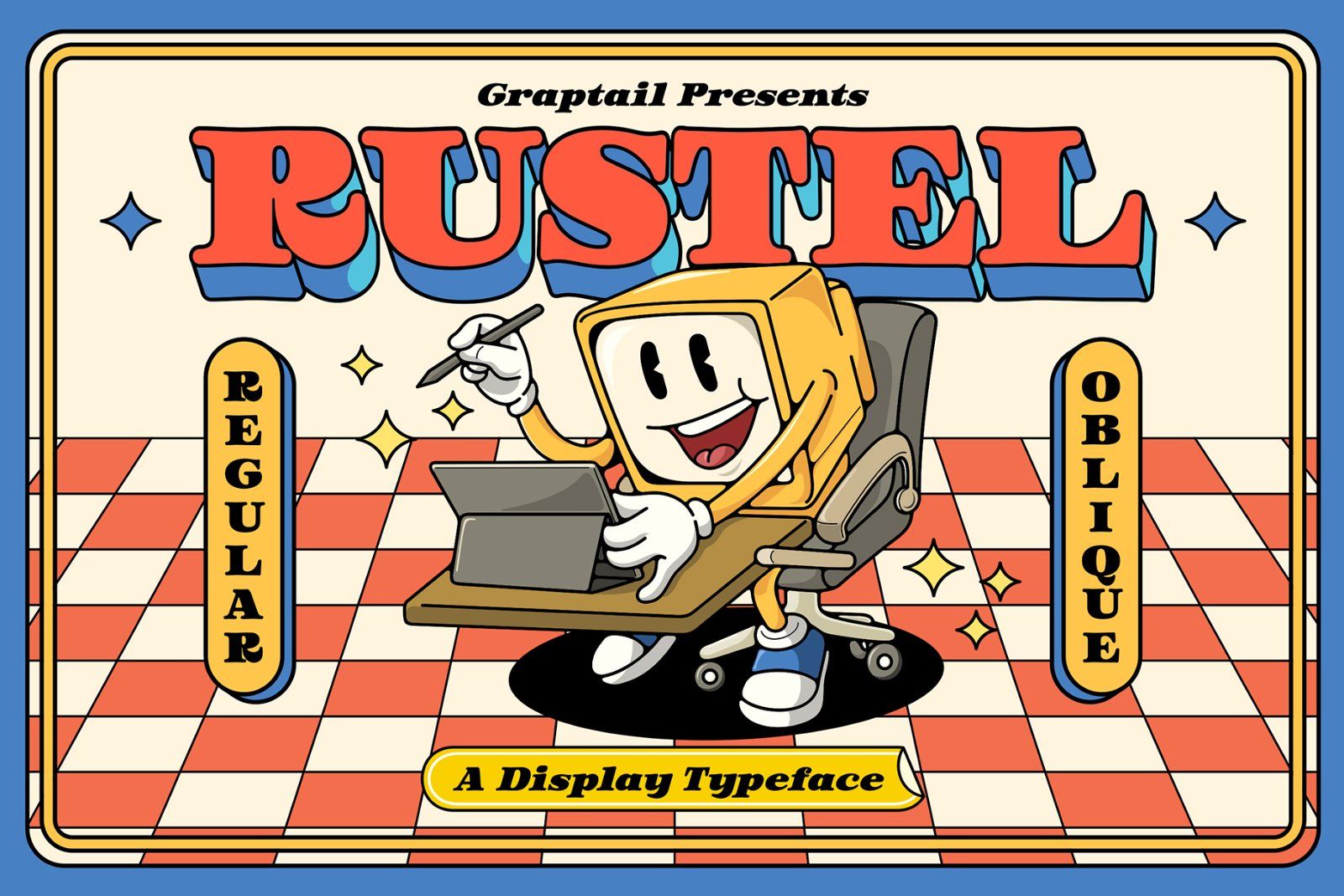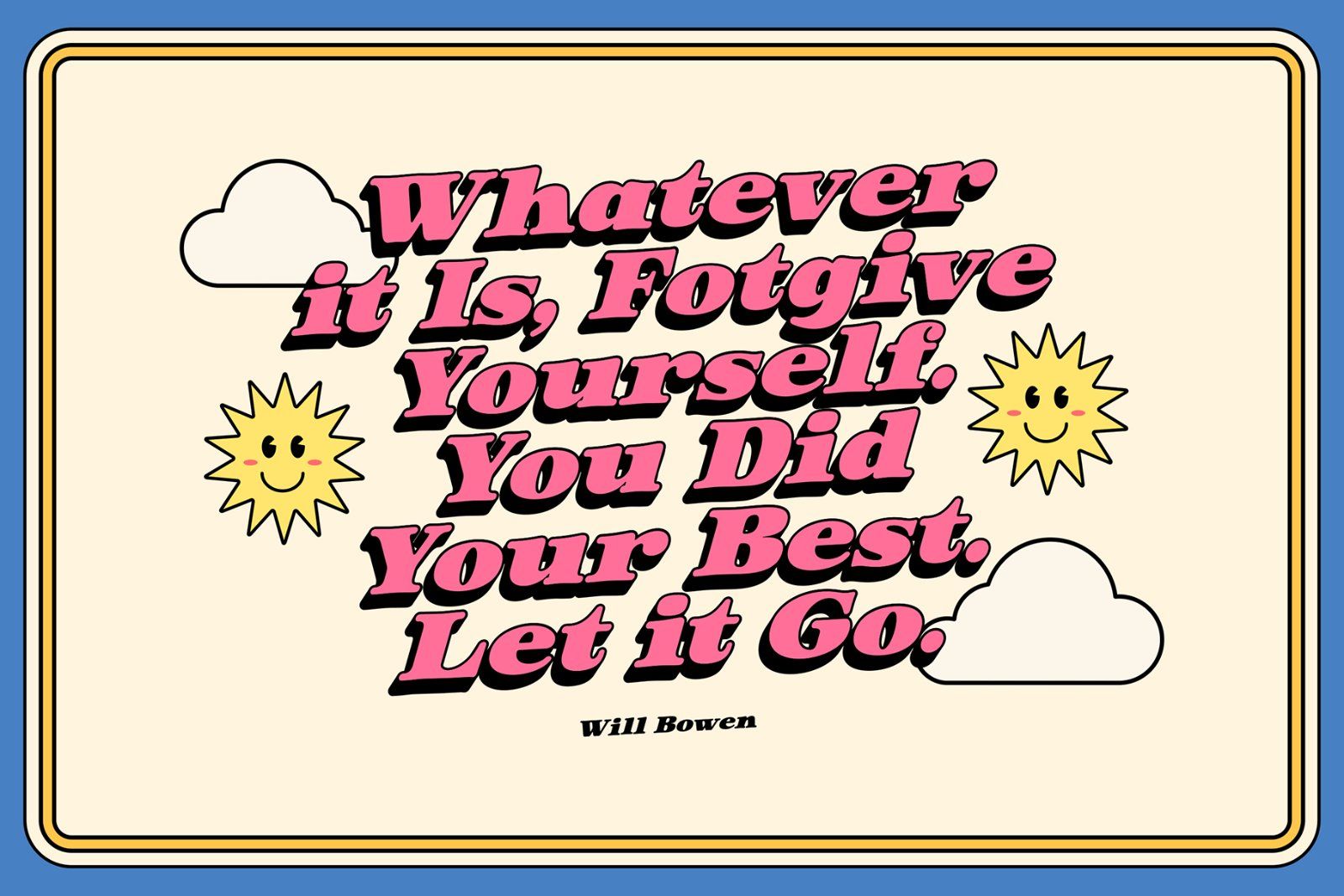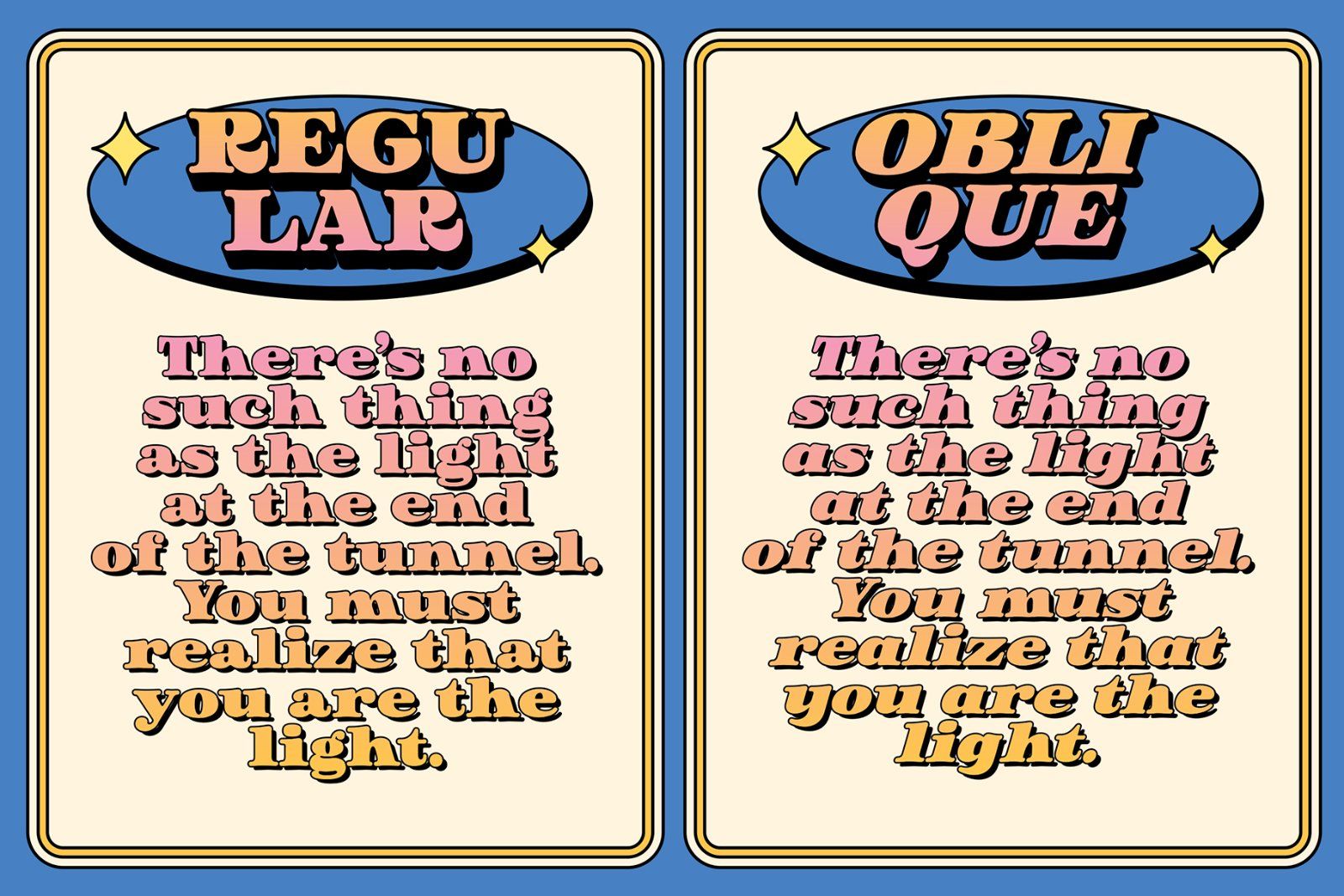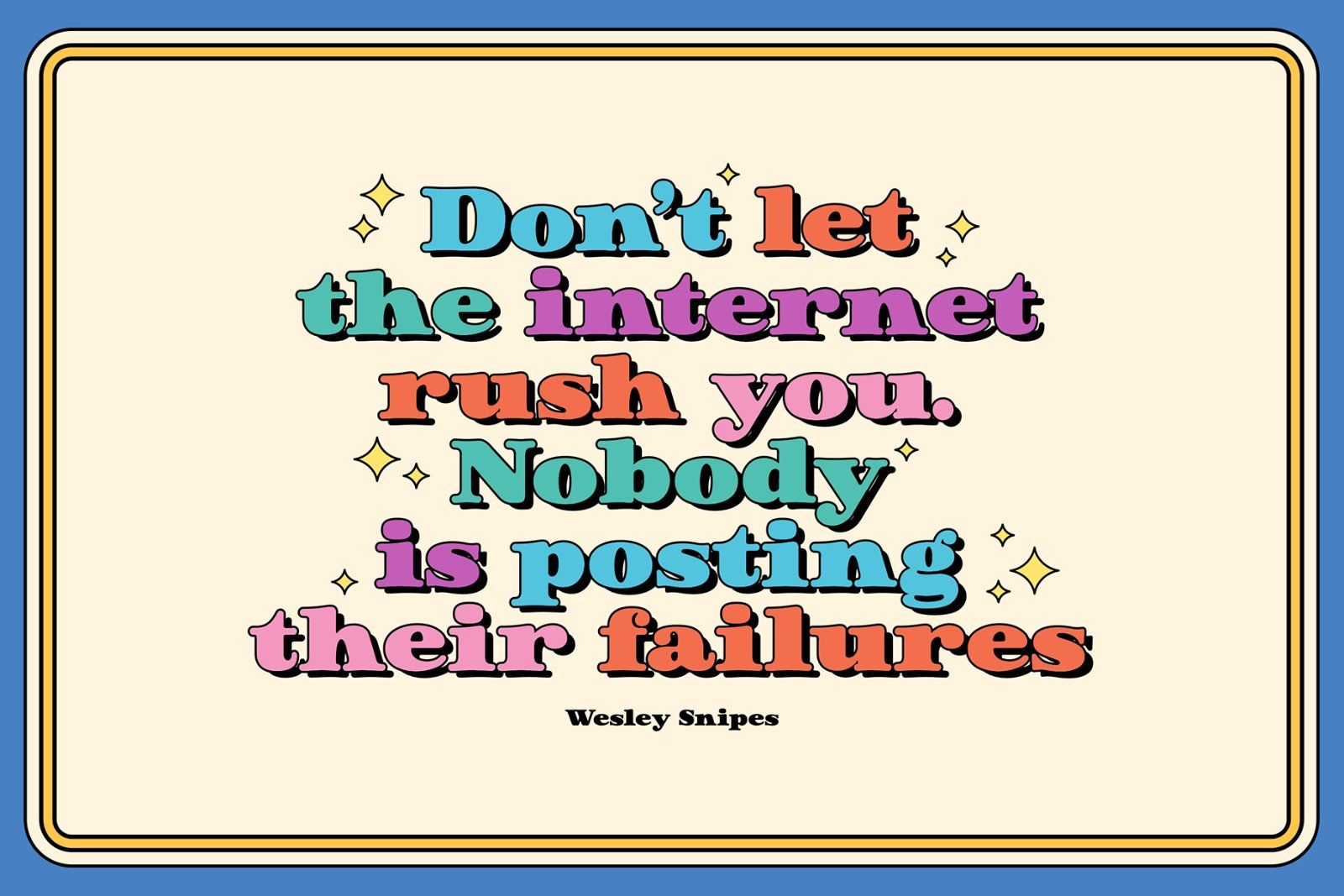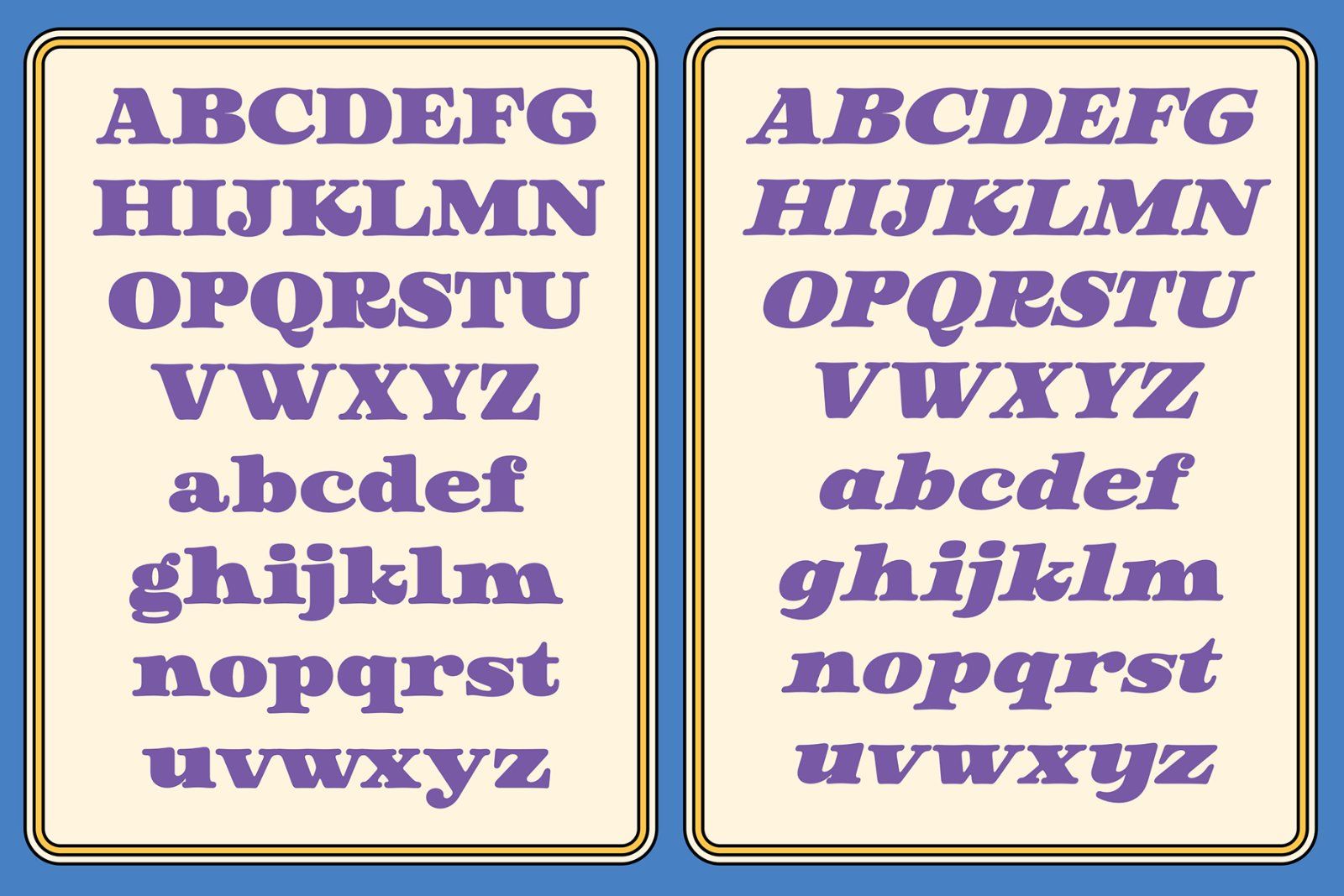
Introducing Rustel, a retro-inspired font that evokes 1950s to 90s nostalgia. This font is perfect for creating vintage-themed designs and giving it a touch of nostalgia and personality.
Rustel features a soft, solid design with curved corners and a unique letter shape. This font also includes a variety of alternative characters and ligatures, allowing you to create many different looks with the same font.